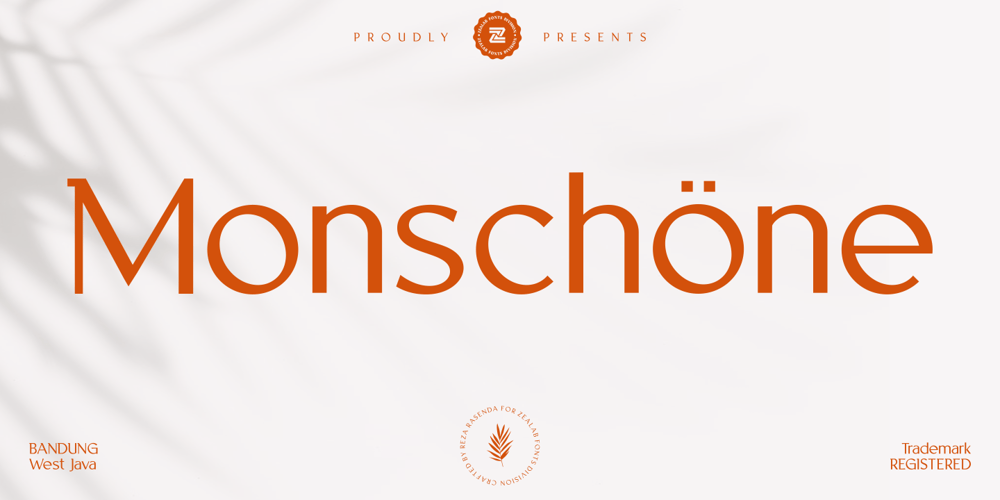
Monschone Font Family was designed by Reza Rasenda and published by Zealab Fonts Division. Monschone contains 1 styles and family package options. Monshcone is a minimalist luxury and gorgeous font that is both classically elegant and inherently modern. Create unique word mark logo, beautiful wedding invitations, use it as an elegant solution for your next magazine layout, or choose this font for any graphics that require a sleek look with an elegant flair.